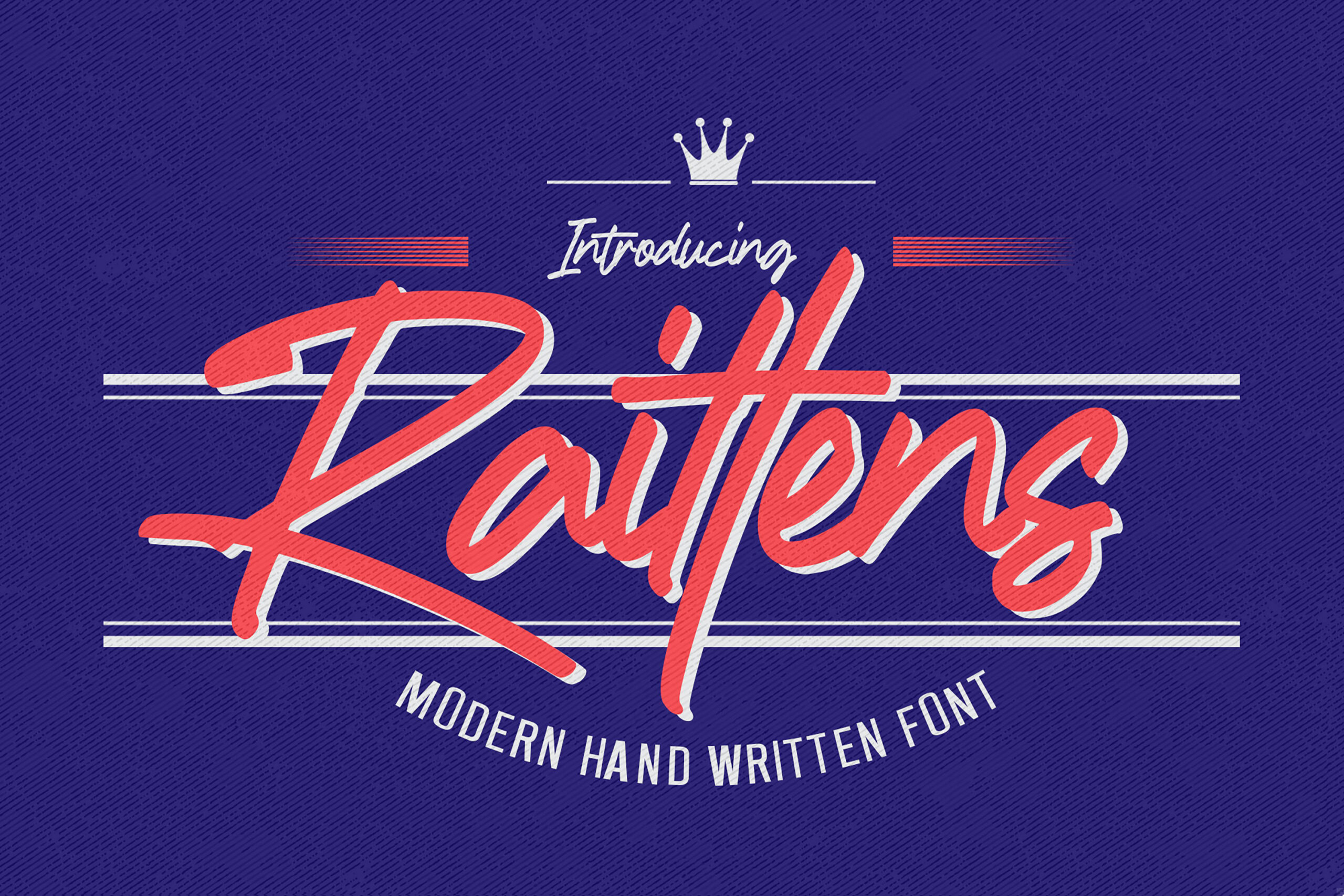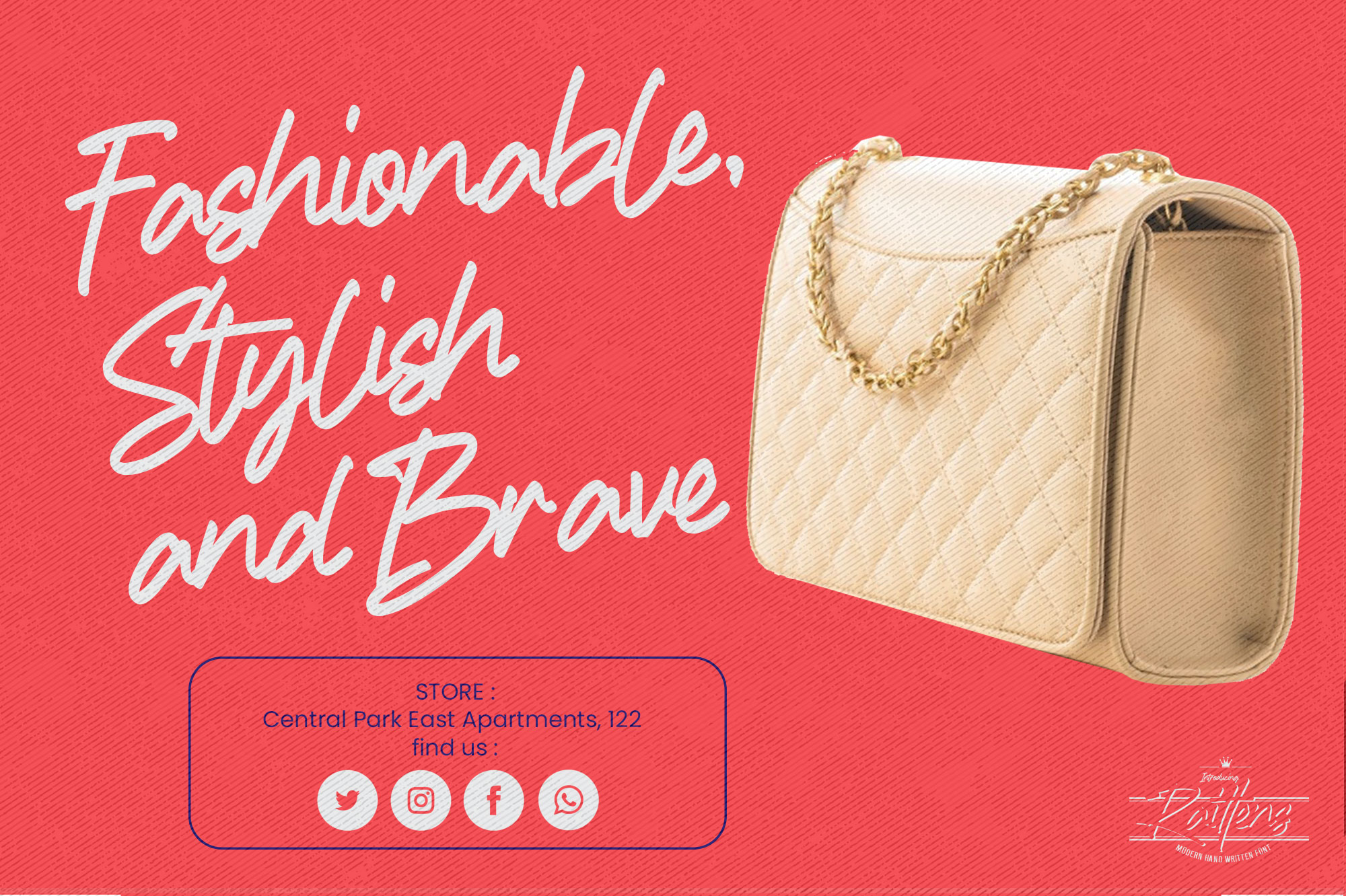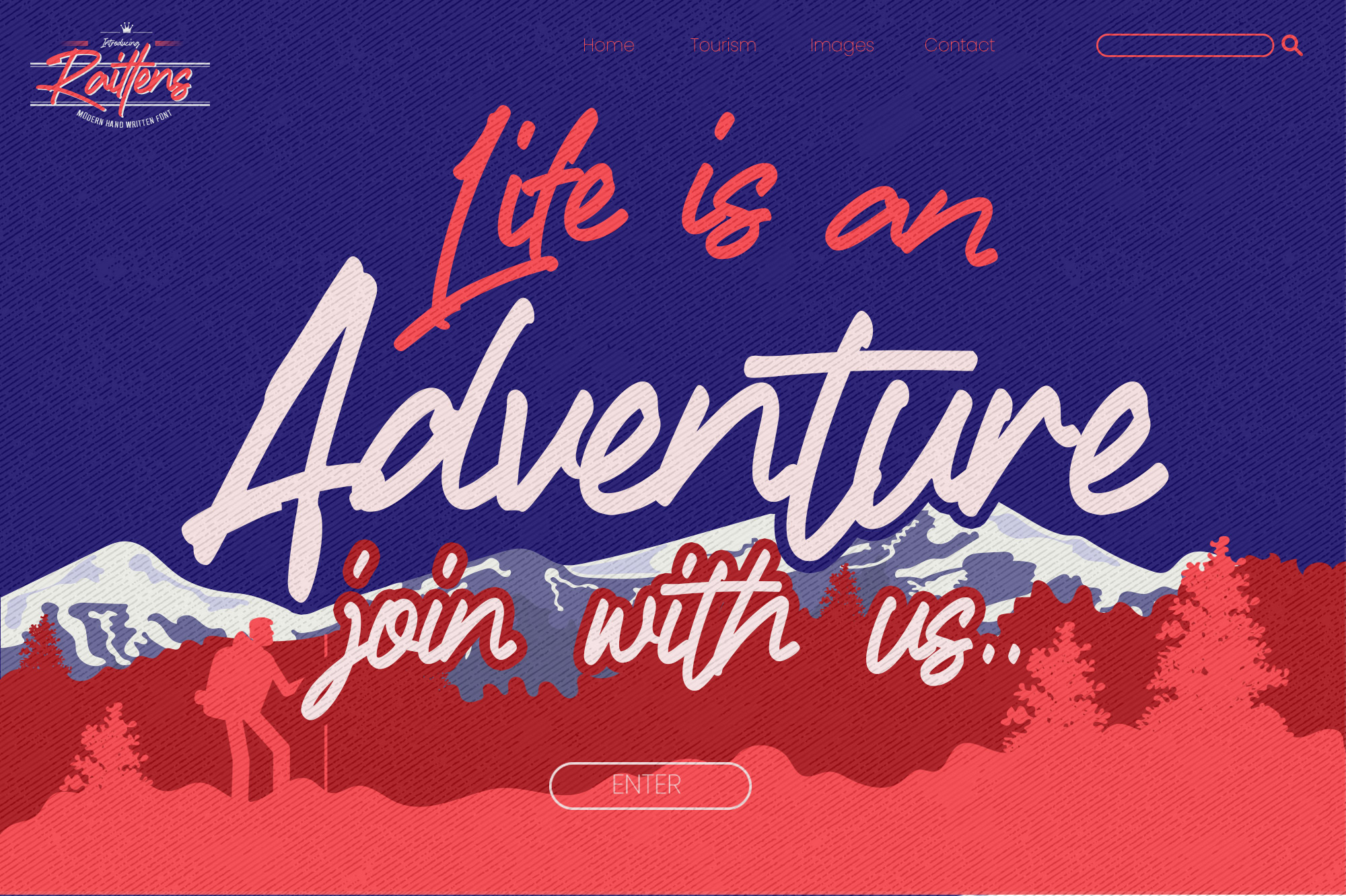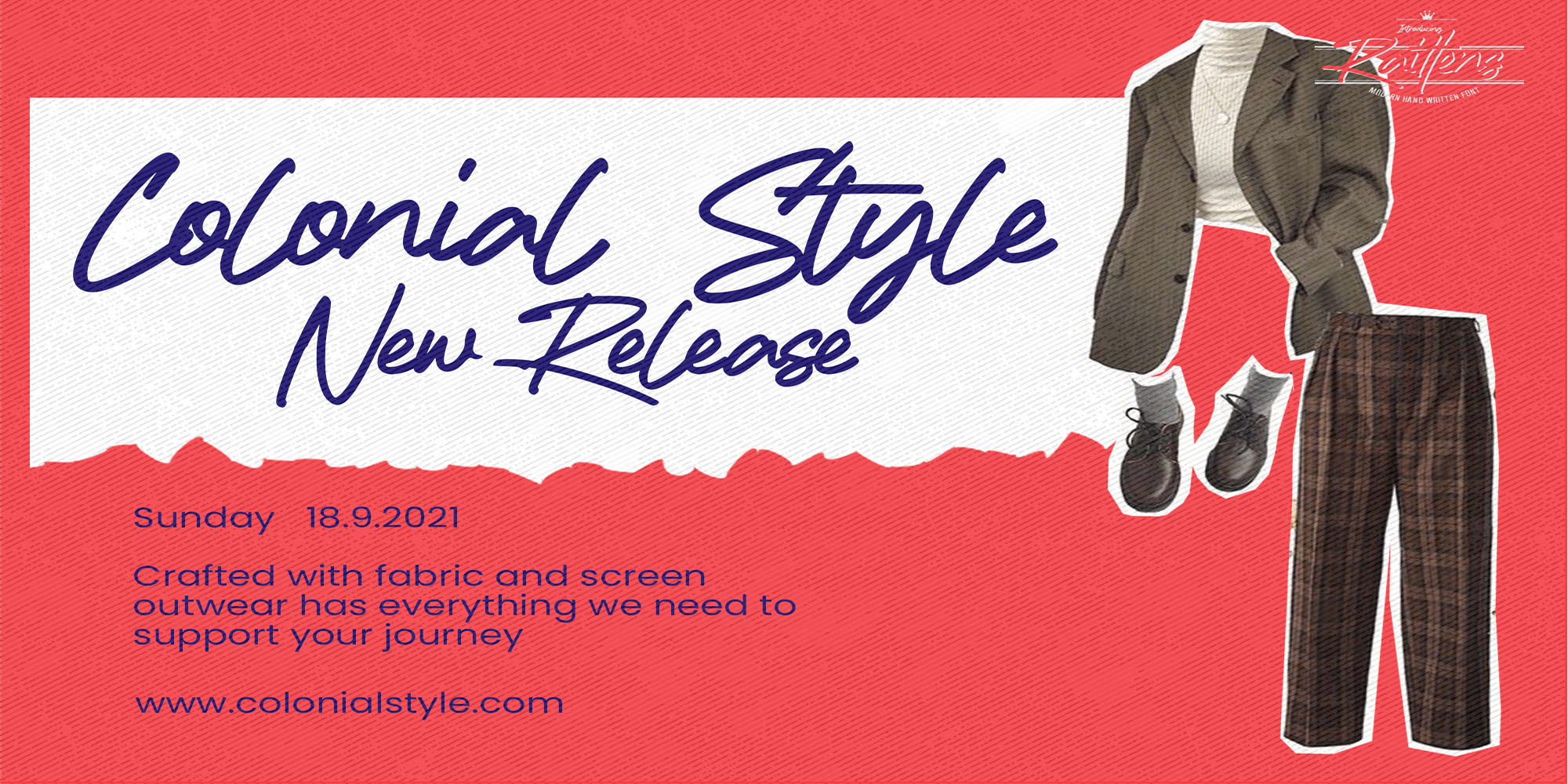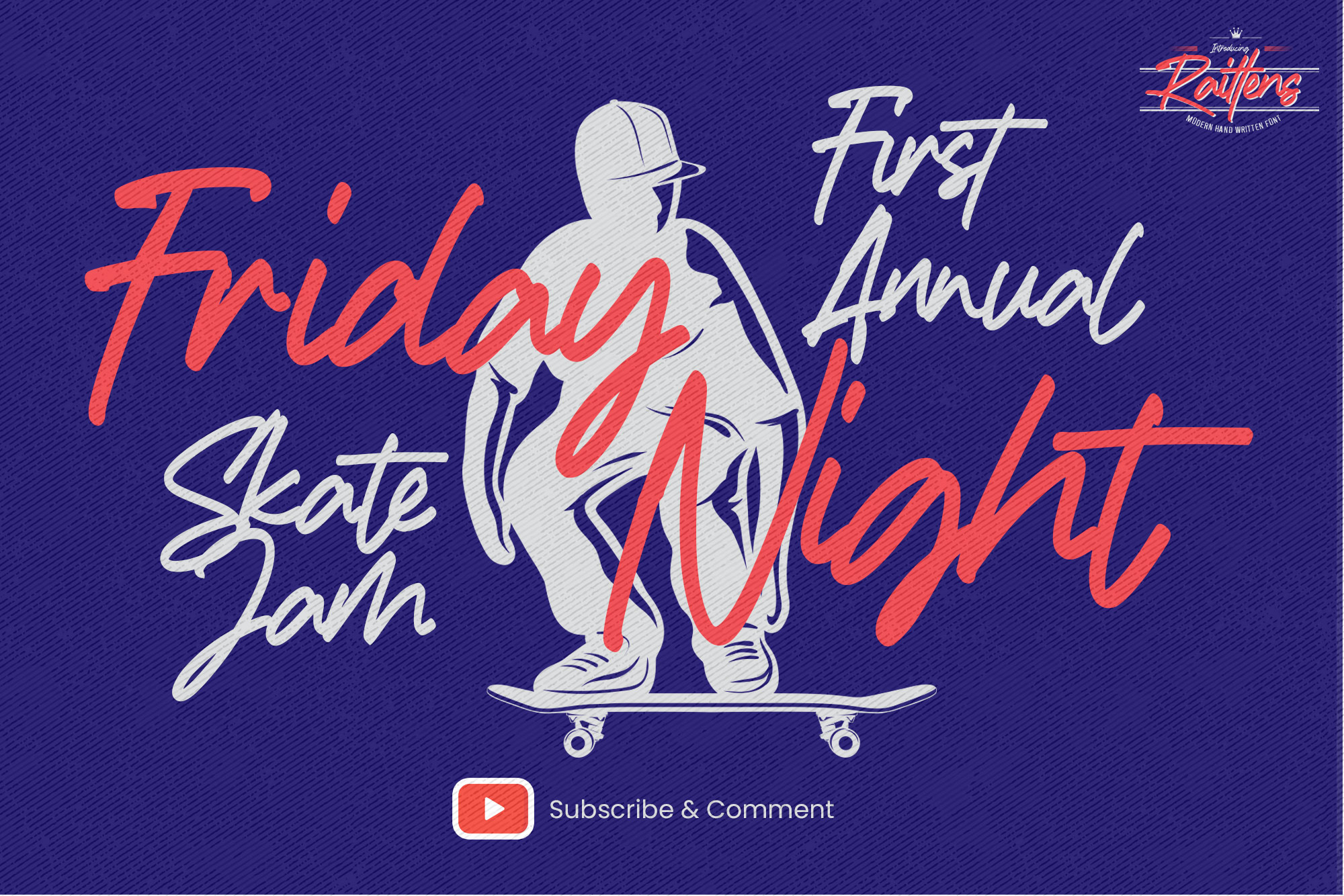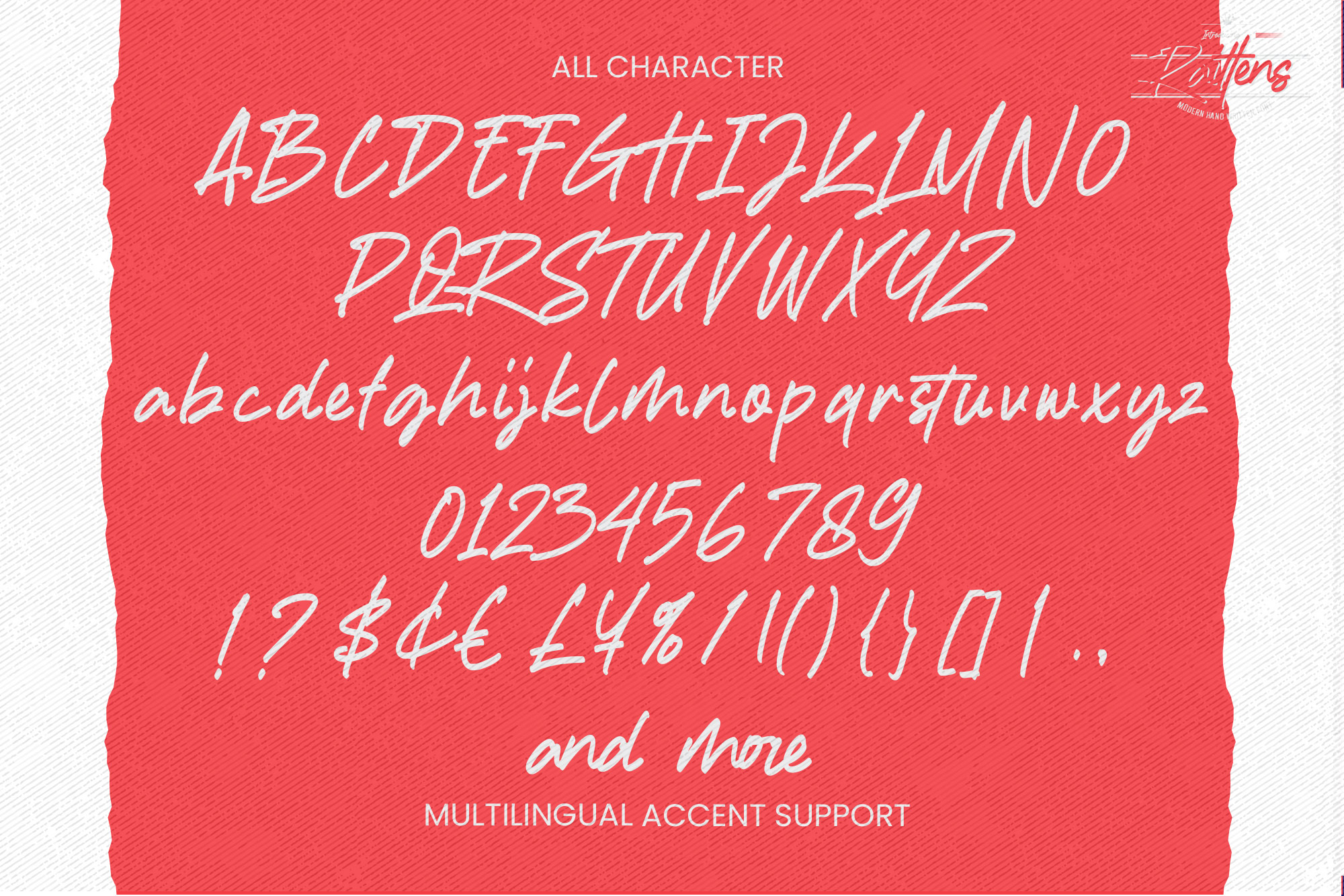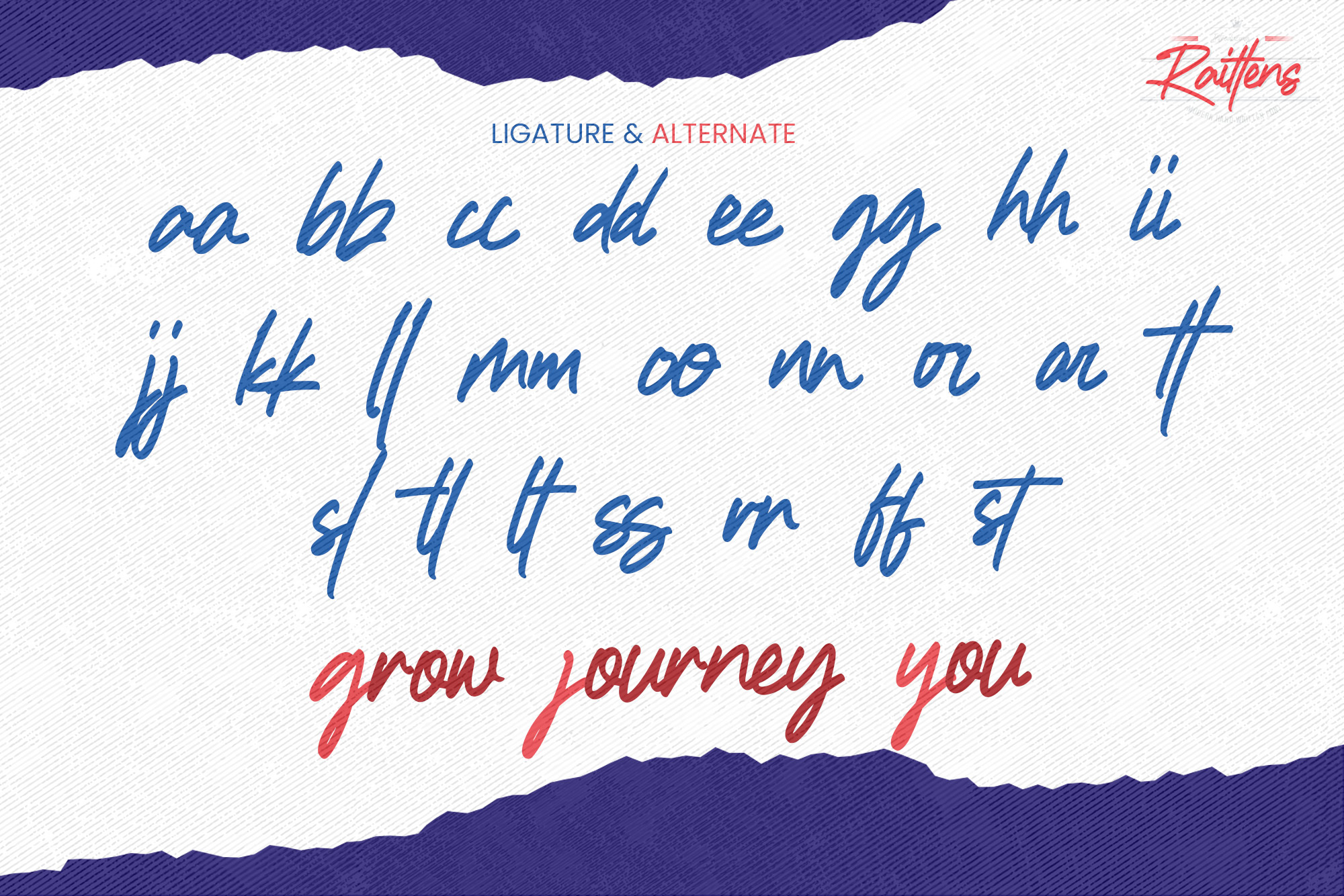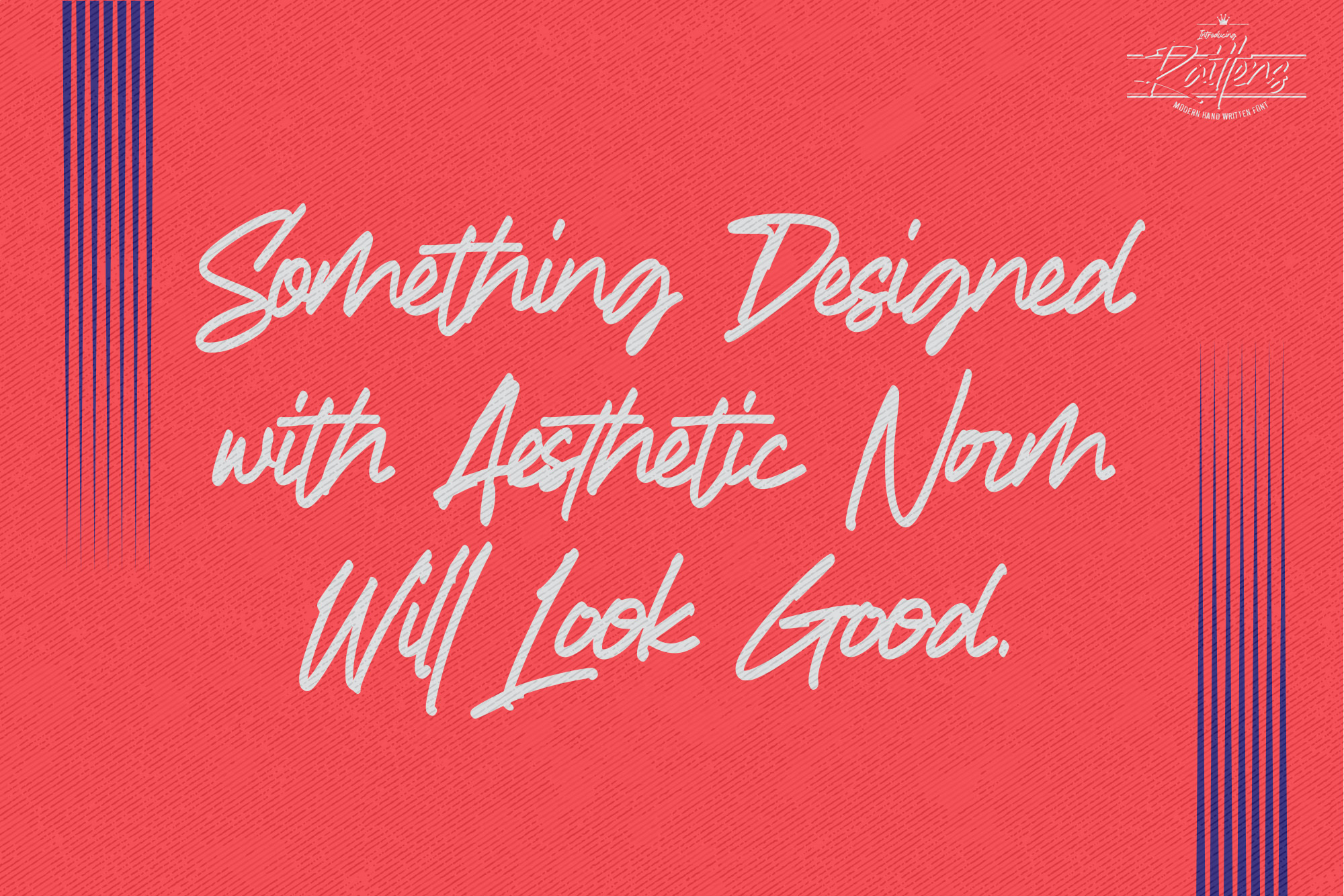
Raittens – Modern Handwritten Font , modern style and dramatic movement that is written casually and quickly.
The best for labels, poster, project designs look modern, strong and cool . It’s perfect for labels, quotes, posters, DIY projects, branding, packaging, greeting cards, websites, photography overlays, signs, scrapbooking, tags and so much more! That is why Raittens has a textured, and authentic characteristic more natural look. You can activate Ligatures and Alternates glyphs OpenType panel.